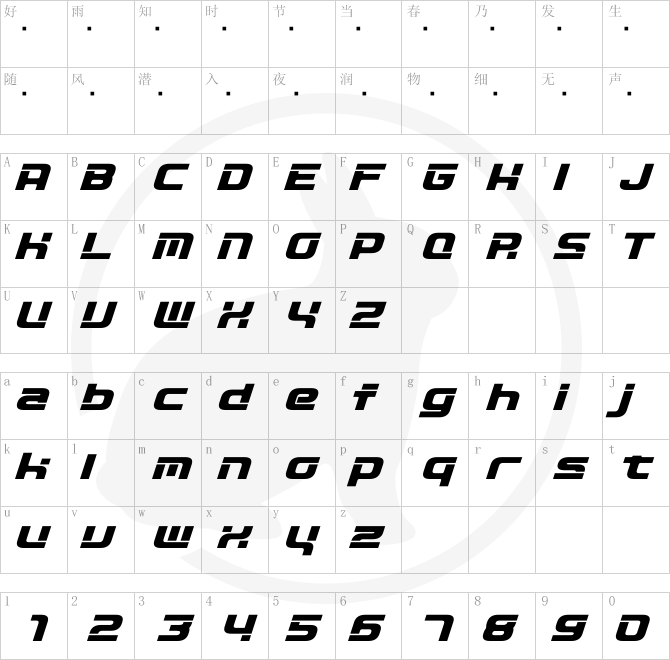
- Font Name:D3 Circuitism Oblique
D3-Circuitism-Oblique.ttf is a very beautiful artistic font, D3-Circuitism-Oblique.ttf is widely used in the design and printing of various books and pictures,D3-Circuitism-Oblique.ttf has a strong visual impact,D3-Circuitism-Oblique.ttf is a commonly used font in newspapers, magazines and books, and is used in posters, e-commerce Poster design, store design, logo design, font design and other fields.D3-Circuitism-Oblique.